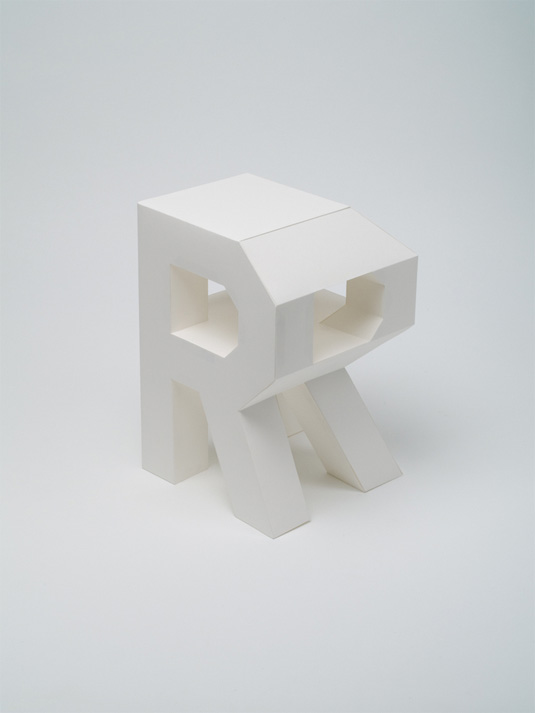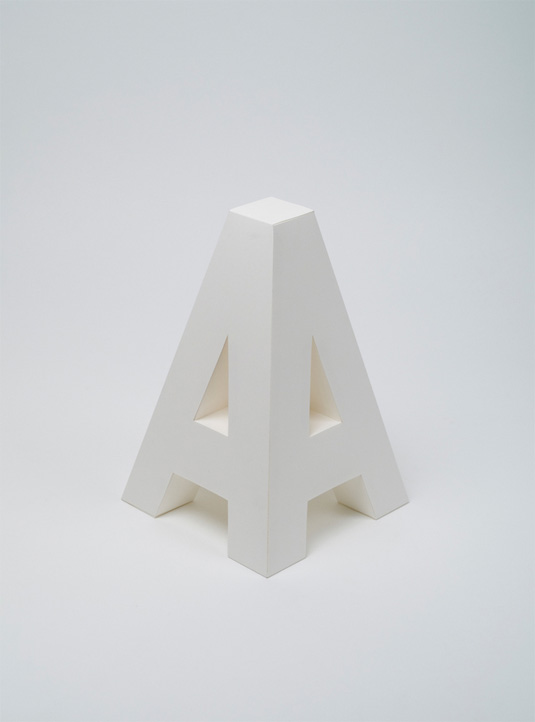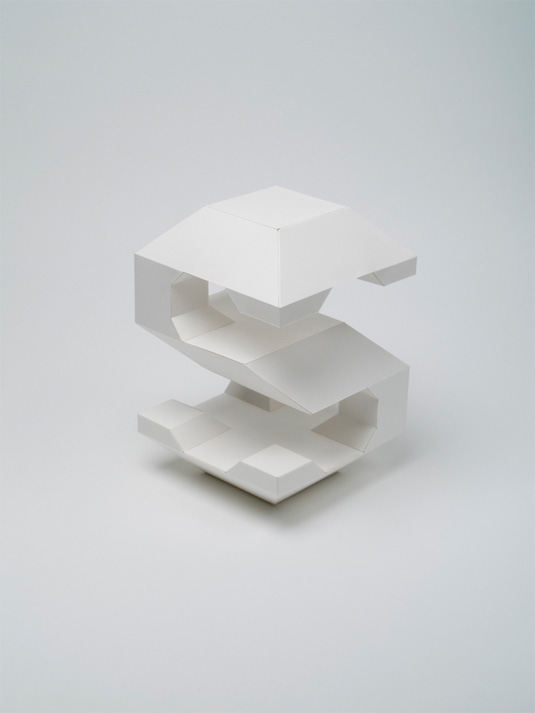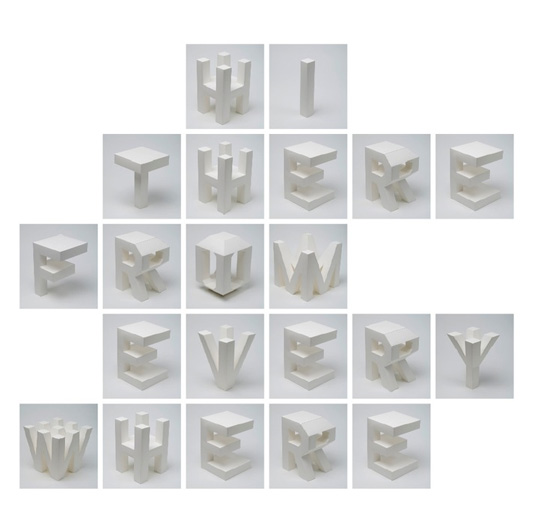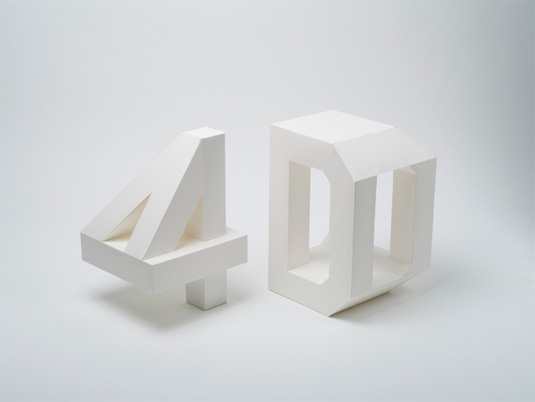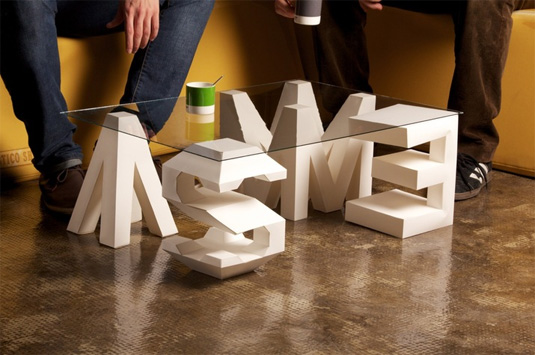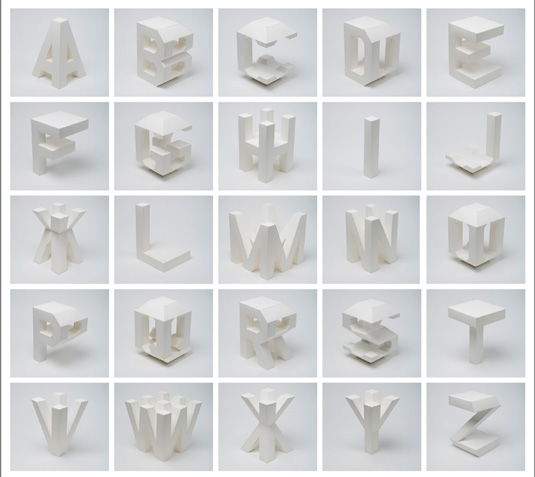
4D type offers a new dimension to font design
4D Typography is the result of clever intersectioning - check out these striking designs.
We're huge fans of typography here at Creative Bloq, so whenever anything new comes our way, we're as giddy as a little kid on Christmas Eve. Here, Barcelona-based designer Lo Siento has blown our minds with this 4D type creation.
Lo Siento explains: "An observer searching to enjoy a particular architecture, is forced to move around and through it. The change in perspective generates new spaces in which light acts in different ways. In this case, it is the typography who makes the effort of abandoning its two dimensions to approach the architectural sense".
By hanging the typography, you're able to surround the characters in order to understand all of their shapes. The simple, clean approach to this typography makes for a truly unique design that we can't quite take our eyes off.